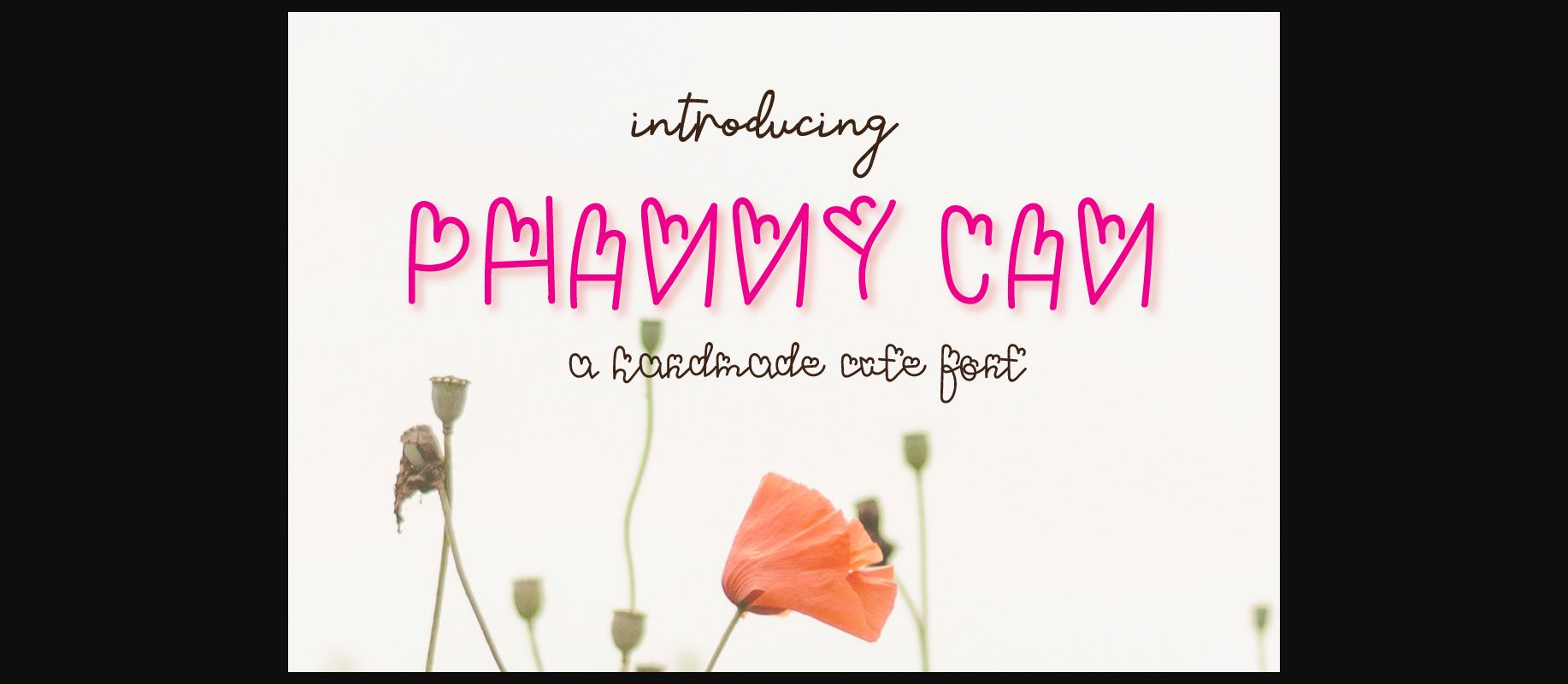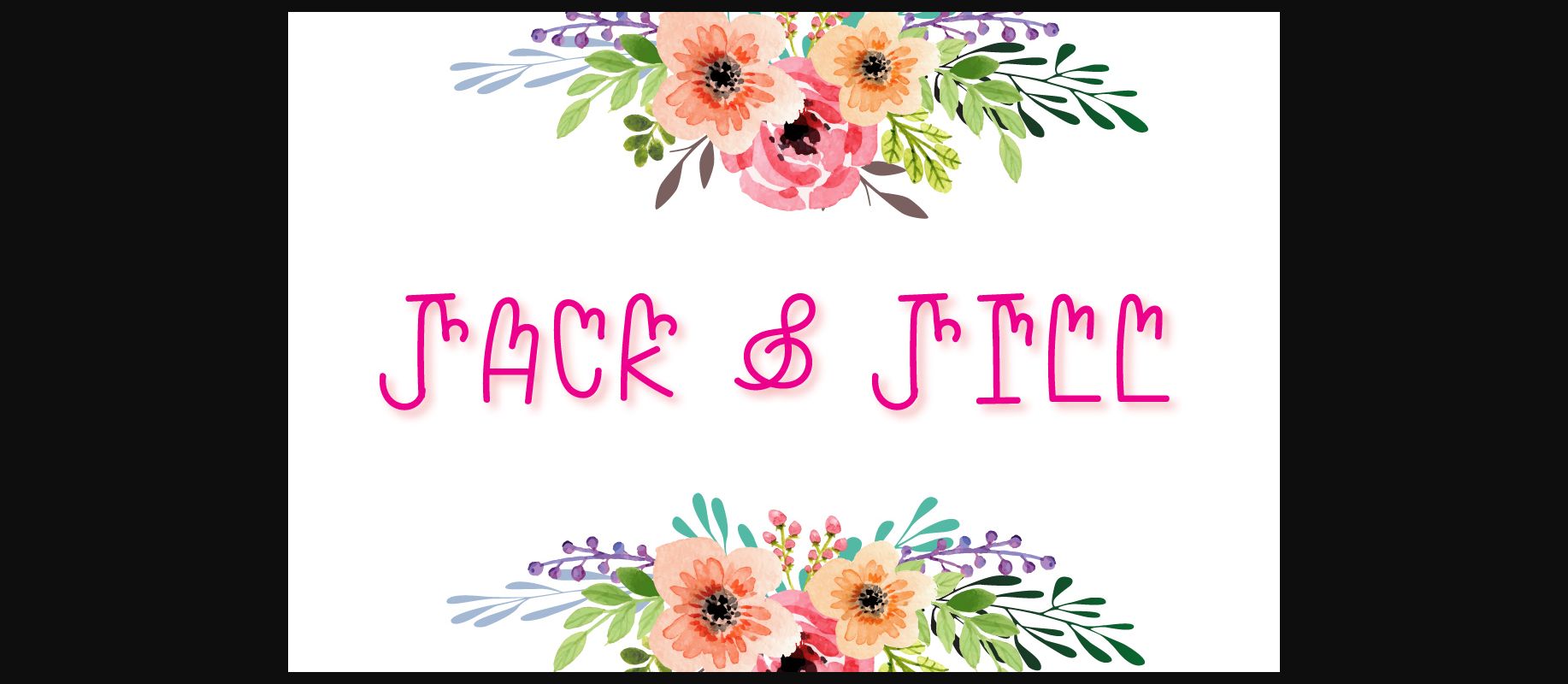
Phanny Can Font
About Phanny Can Font
Phanny Can is a modern script font with adorable and fun elements. It will turn any design project into a lovely stand out.